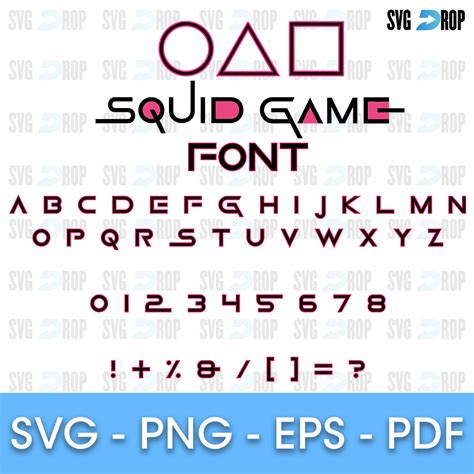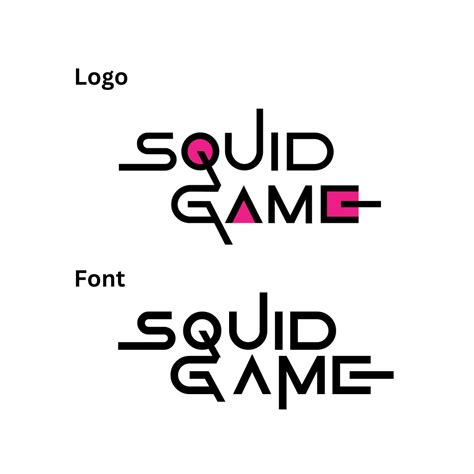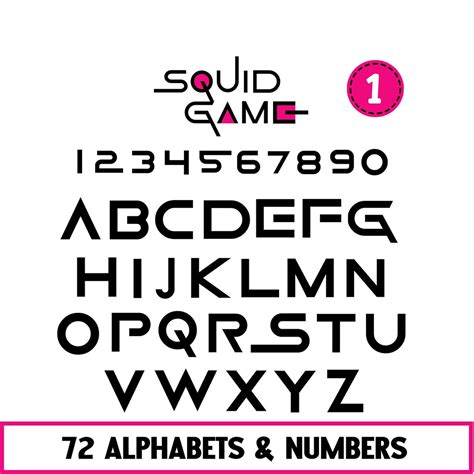
The world of typography has always been a fascinating realm, where each font tells a unique story and evokes distinct emotions. One font that has recently captured global attention is the Squid Game Font. This font gained immense popularity due to its association with the hit Netflix series "Squid Game," which became a cultural phenomenon. The font's distinctive style and the show's massive success have made it a subject of interest for designers, typography enthusiasts, and casual viewers alike.
The Rise of Squid Game Font
The Squid Game Font is more than just a typographic choice; it is a symbol of the show's dark and intriguing narrative. The font's sharp, angular lines and minimalistic design perfectly complement the series' dystopian themes and high-stakes gameplay. The font's popularity can be attributed to several factors:
- The show's massive global audience, which includes millions of viewers who have become familiar with the font through the series' promotional materials and on-screen text.
- The font's unique and memorable design, which stands out in a sea of more conventional typography.
- The show's cultural impact, which has sparked countless discussions, memes, and fan art, further cementing the font's place in popular culture.
Understanding the Design of Squid Game Font
The Squid Game Font is characterized by its clean, geometric shapes and bold lines. The font's design is reminiscent of modernist typography, which emphasizes simplicity and functionality. The font's letters are often angular and have a slightly futuristic feel, which aligns well with the show's futuristic and dystopian themes.
One of the most striking features of the Squid Game Font is its use of negative space. The font often incorporates large areas of white space within the letters, creating a sense of balance and harmony. This design choice not only makes the font visually appealing but also enhances its readability, even at smaller sizes.
The font's design also includes several unique ligatures and alternates, which add to its distinctive look. These ligatures and alternates are often used in the show's promotional materials and on-screen text, further emphasizing the font's importance to the series' visual identity.
Using Squid Game Font in Your Projects
Once you have the necessary permissions, you can start experimenting with the font in your designs. The Squid Game Font works well in a variety of contexts, from digital media to print materials. Its clean, modern design makes it a versatile choice for headlines, logos, and body text.
When using the Squid Game Font, it's important to consider the overall aesthetic of your project. The font's bold, angular design can be overpowering if not used judiciously. Pairing it with complementary fonts and colors can help create a balanced and harmonious design.
Here are some tips for using the Squid Game Font effectively:
- Use the font sparingly to create visual interest and emphasis.
- Pair the font with complementary fonts that have a similar modernist aesthetic.
- Experiment with different sizes and weights to create visual hierarchy.
- Consider the font's readability and ensure that it is legible at all sizes.
Creating a Squid Game Font-Inspired Design
If you're looking to create a design inspired by the Squid Game Font but want to avoid using the font directly, there are several alternatives you can consider. These fonts share similar design elements and can help you achieve a similar aesthetic.
Here are some fonts that are inspired by the Squid Game Font:
| Font Name | Description |
|---|---|
| Montserrat | A modern, geometric sans-serif font with a similar angular design. |
| Roboto | A sleek, modern font with a clean, minimalistic design. |
| Lato | A versatile font with a modernist aesthetic and excellent readability. |
| Open Sans | A highly readable font with a clean, modern design. |
When creating a design inspired by the Squid Game Font, it's important to consider the overall aesthetic and mood of your project. The font's bold, angular design is well-suited to projects with a modern, futuristic, or dystopian theme. Pairing it with complementary fonts and colors can help create a cohesive and visually appealing design.
Here are some steps to create a Squid Game Font-inspired design:
- Choose a font that shares similar design elements with the Squid Game Font.
- Experiment with different sizes and weights to create visual hierarchy.
- Pair the font with complementary fonts and colors to create a balanced design.
As the world of typography continues to evolve, the Squid Game Font serves as a reminder of the importance of design in creating a strong visual identity and the power of typography in visual storytelling. Whether you’re a designer, typography enthusiast, or casual viewer, the Squid Game Font is a fascinating subject that offers insights into the world of design and the cultural impact of popular media.